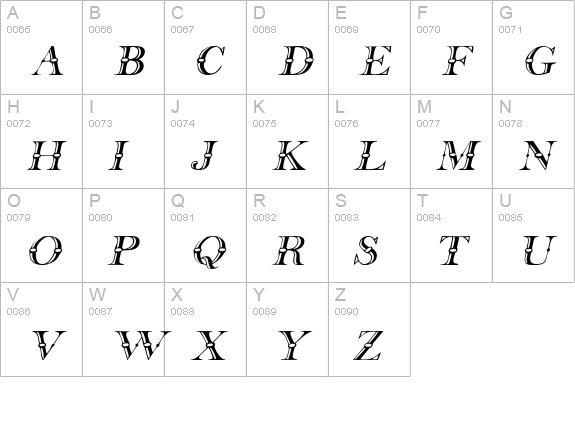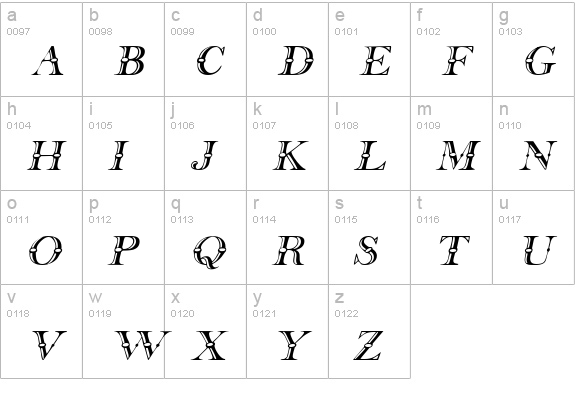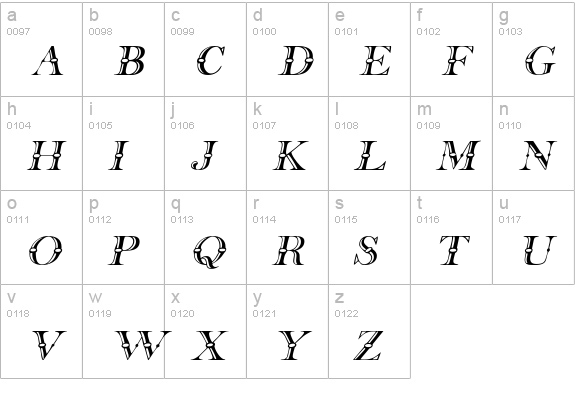
CruiselineDisplayCaps Italic Font Details
CruiselineDisplayCaps Italic is a distinctive, italic variant in the CruiselineDisplayCaps typeface family \xE2\x80\x94 well suited to design and typography projects.
CruiselineDisplayCaps Italic font is a sleek and modern typeface that exudes sophistication and elegance. With its stylish, slanted letterforms and clean lines, this font is perfect for adding a touch of luxury to any design project. Whether you're creating a logo, branding materials, or a website, CruiselineDisplayCaps Italic font will make your text stand out with its bold and eye-catching appearance. Best of all, CruiselineDisplayCaps Italic font is available for free download at FontsMarket.com. This means you can easily access this premium font without having to spend a dime. So why wait? Elevate your designs with the exquisite CruiselineDisplayCaps Italic font today and make a lasting impression on your audience.